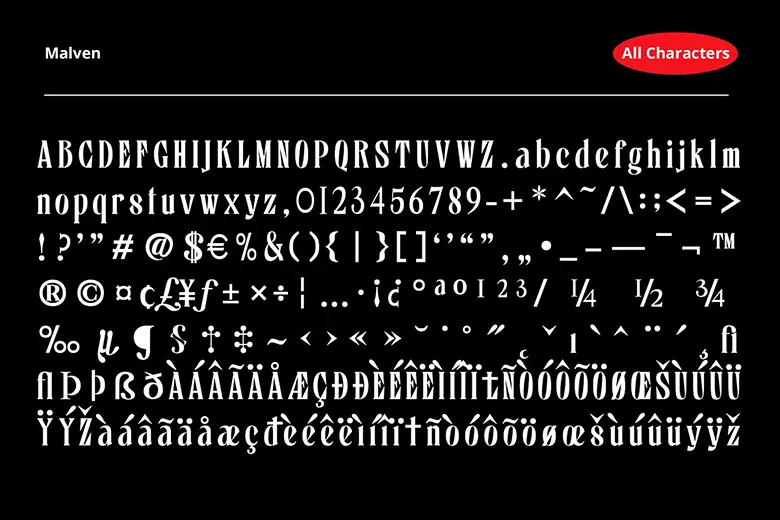
Malven Font is a modern serif with thin strokes and low contrast, featuring elegant, stylish serifs. This versatile font is perfect for a wide range of design projects, including prints, posters, packaging, branding, greeting cards, book titles, wedding designs, and more. Whether you’re working on a pop-vintage, retro, or sleek modern look, Malven adds a polished touch to any design.
With both uppercase and lowercase letters, numbers, punctuation, and multilingual characters, Malven is easy to use and offers all the features you need for creative projects. Let your imagination run wild, and use Malven to bring beauty and elegance to your next design!